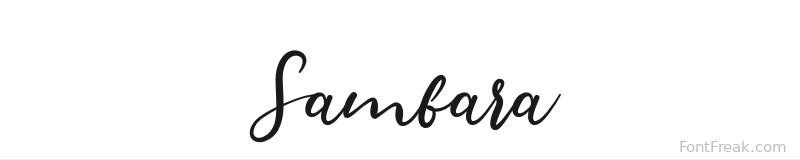
Sambara
Sambara Italic
About Sambara
Sambara is a captivating script font designed by Kong Font, released in 2020 as freeware. This elegant typeface belongs to the script category, characterized by its fluid, cursive strokes that evoke a sense of sophistication and warmth. The visual style of the Sambara font features a delicate stroke weight with graceful curves, creating a harmonious balance between boldness and subtlety. The contrast in the letterforms adds depth, while the generous spacing between characters enhances readability, making it suitable for a range of design applications.
Sambara is perfect for use cases that require a touch of elegance and personalization. It shines in wedding invitations, where its romantic flow can beautifully convey heartfelt sentiments. Additionally, this font works wonderfully for restaurant menus, providing a warm welcome to diners with its inviting aesthetic. Movie posters can benefit from Sambara's distinctive style, lending a unique flair that captures attention. It is also an excellent choice for branding projects, particularly for small businesses aiming to convey a friendly yet professional image. Content creators looking to elevate their visual presentations will find that Sambara adds a creative touch to social media graphics and blog headers.
The target audience for the Sambara font includes graphic designers, small business owners, and content creators who appreciate the balance of elegance and readability. Its versatility makes it a valuable addition to any designer's toolkit. What sets Sambara apart is its ability to blend artistry with functionality, making it not only visually appealing but also practical for various design needs. With its charm and adaptability, the Sambara font free download is a must-have for anyone looking to infuse their projects with a touch of creativity and sophistication.